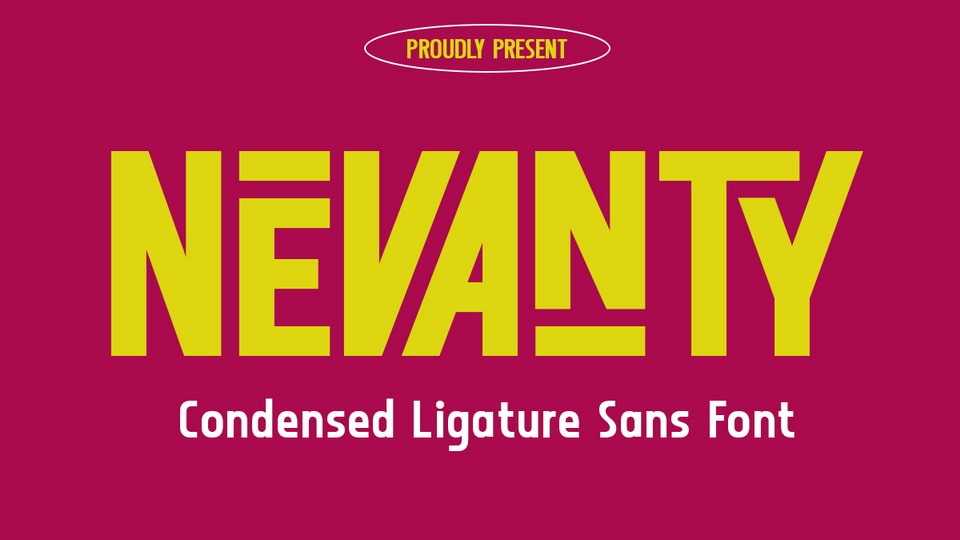
Download Nevanty font, a condensed ligatures sans serif typeface with cheerful display font combines boldness with a condensed style, making it perfect for adding a touch of personality to your designs.